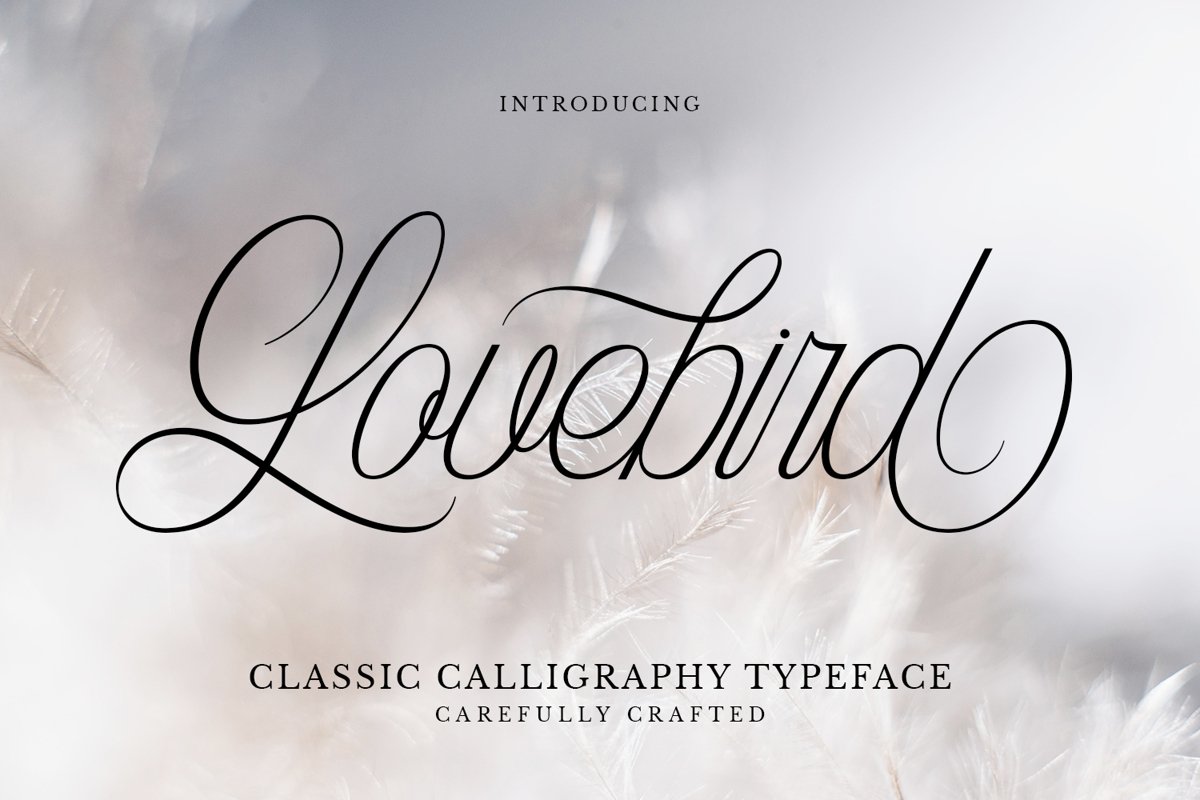
Lovebird is a classic calligraphy typeface. Perfect for logo, label, badges, apparel design, merchandise, branding, packaging, quotes, business card, wedding needs and many more.